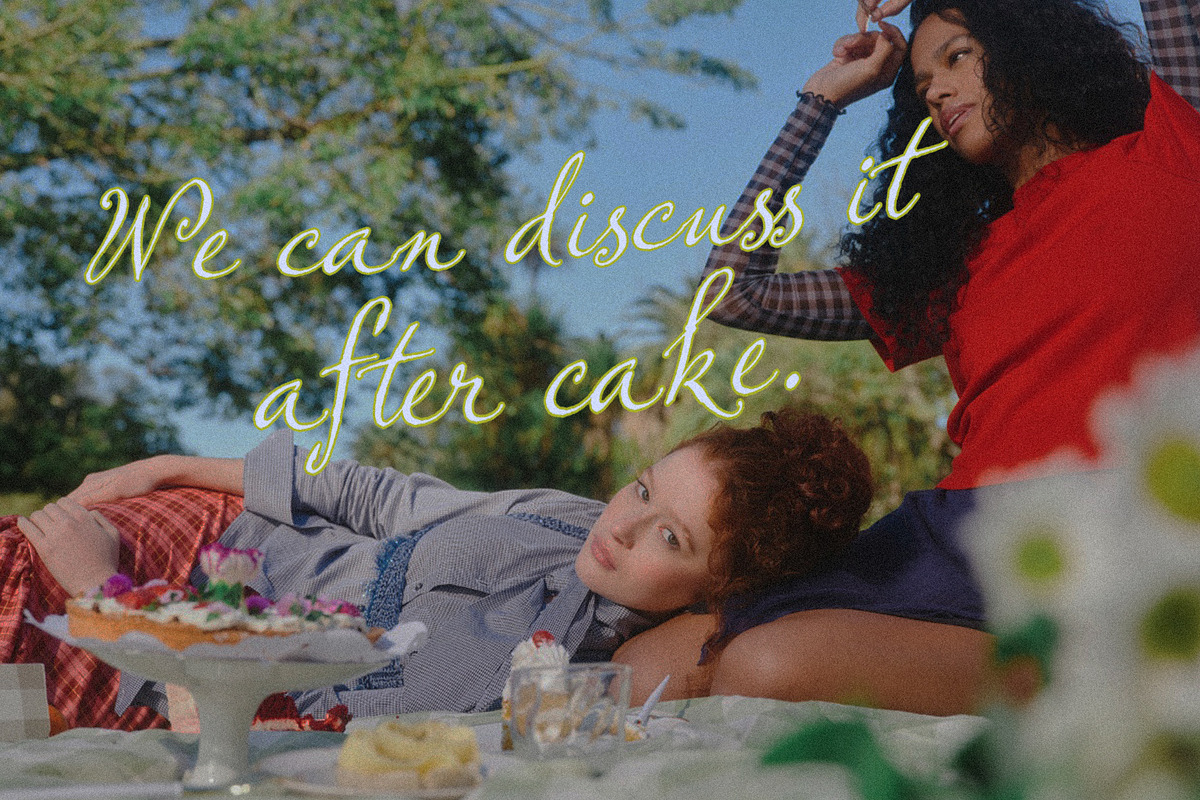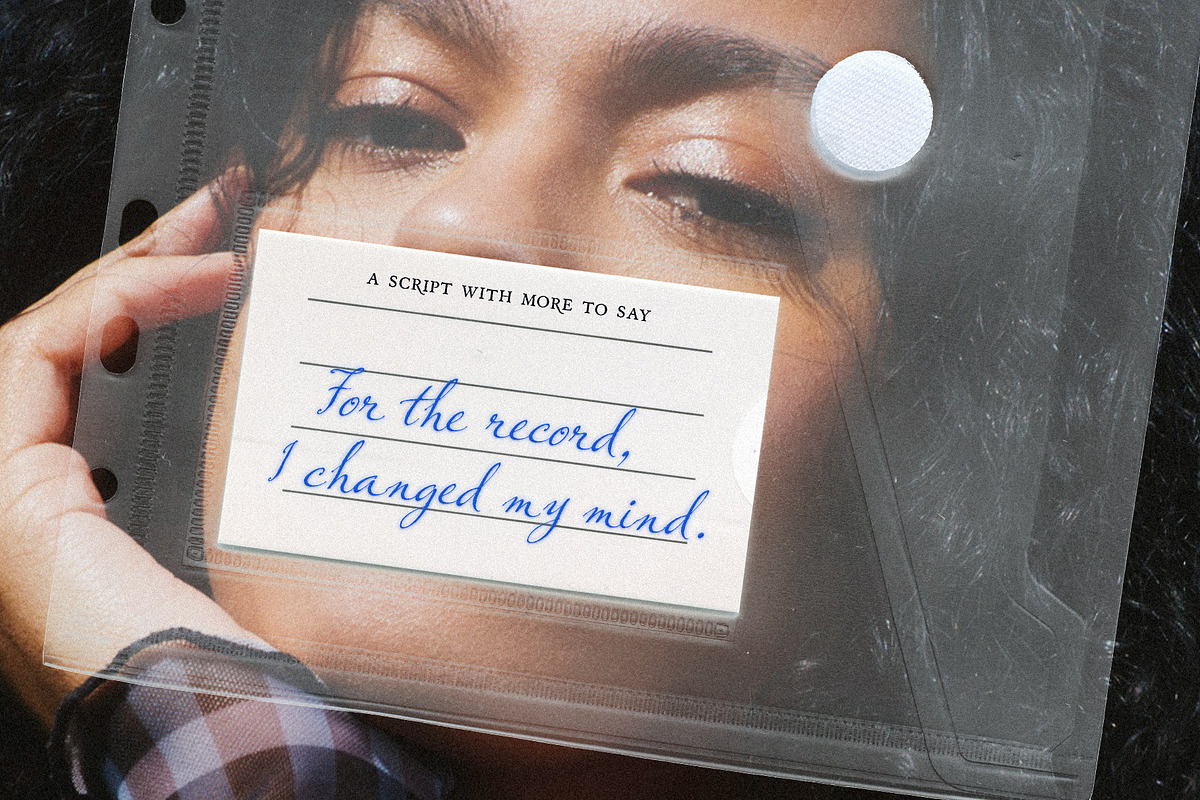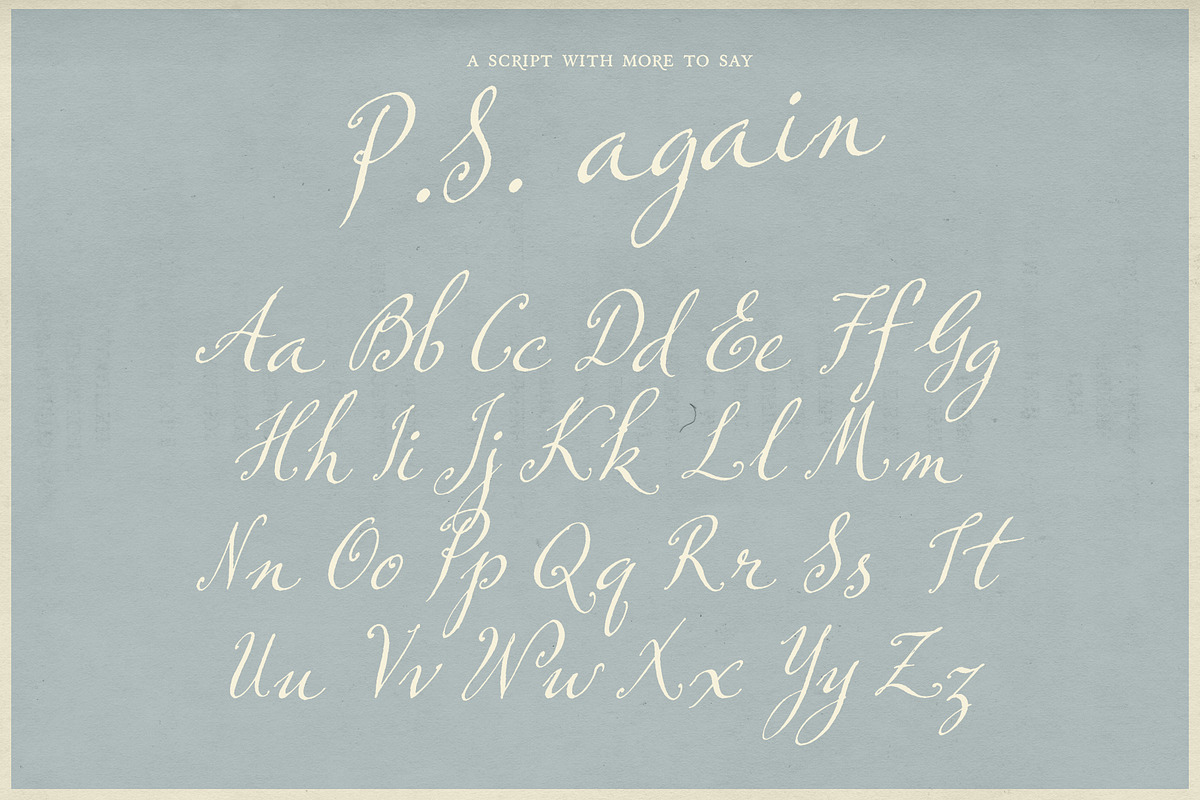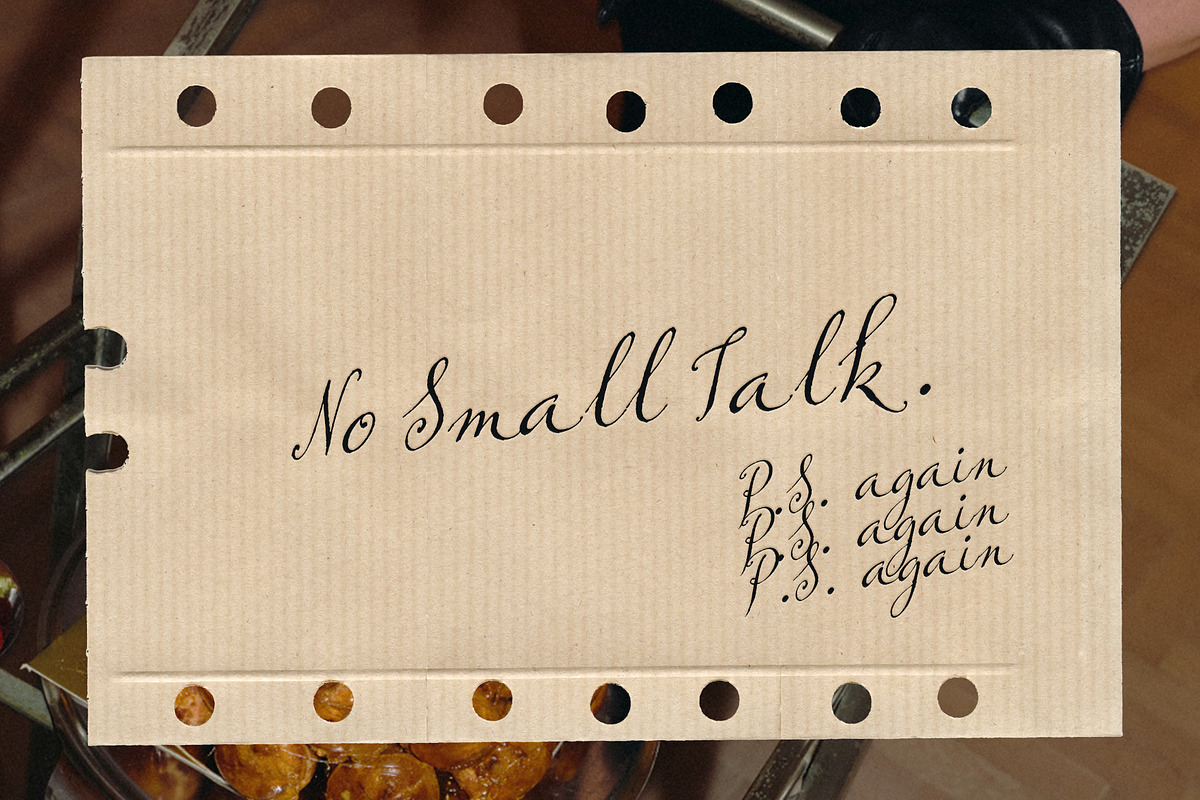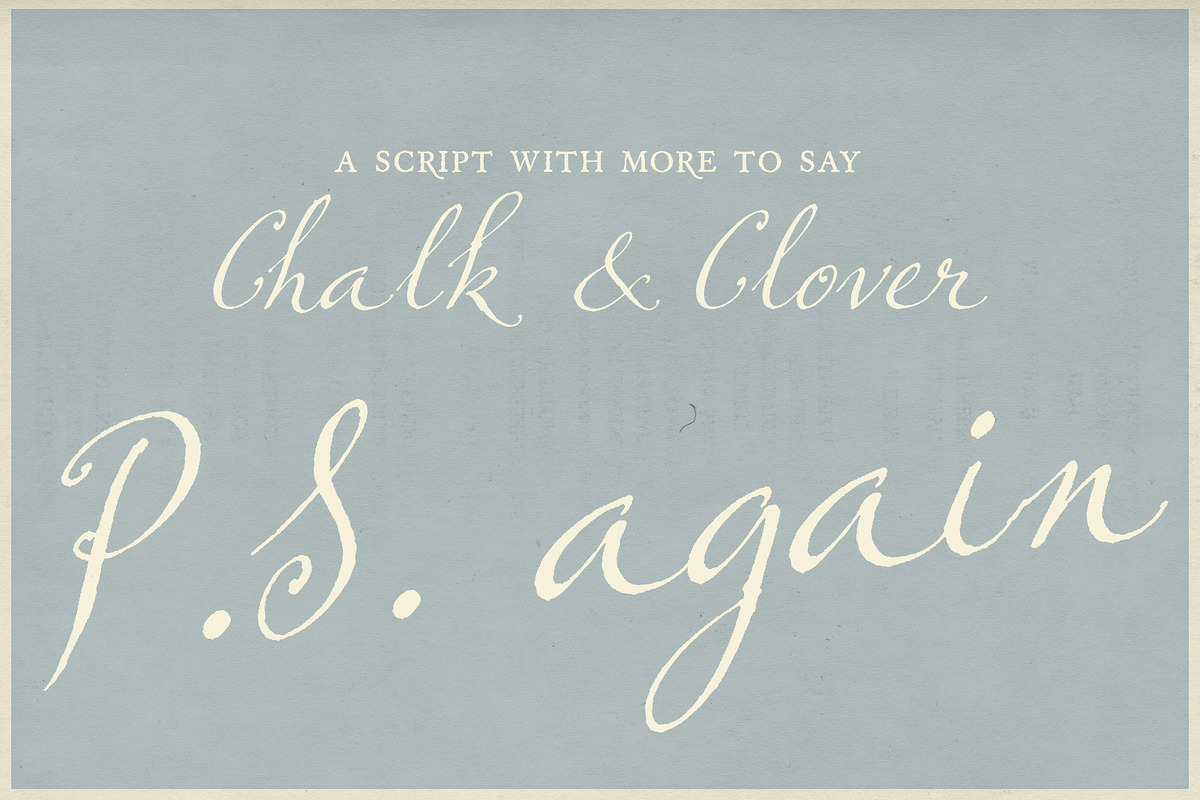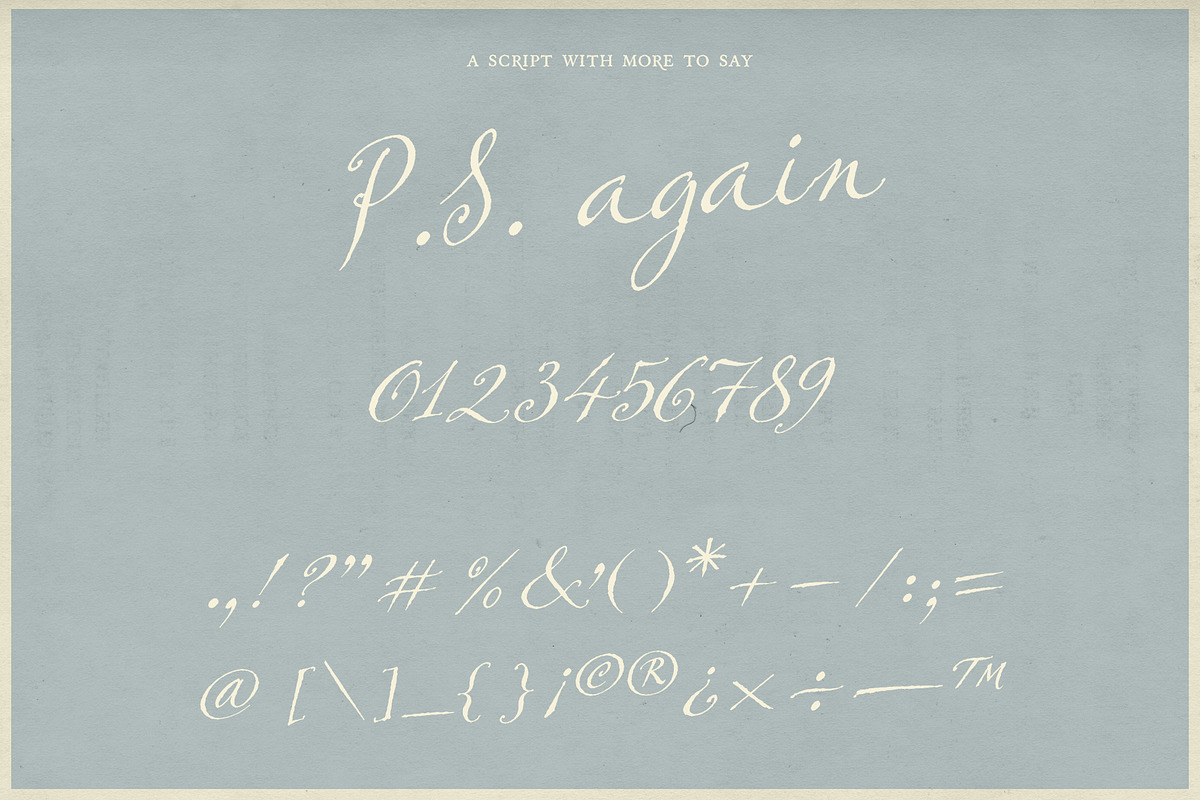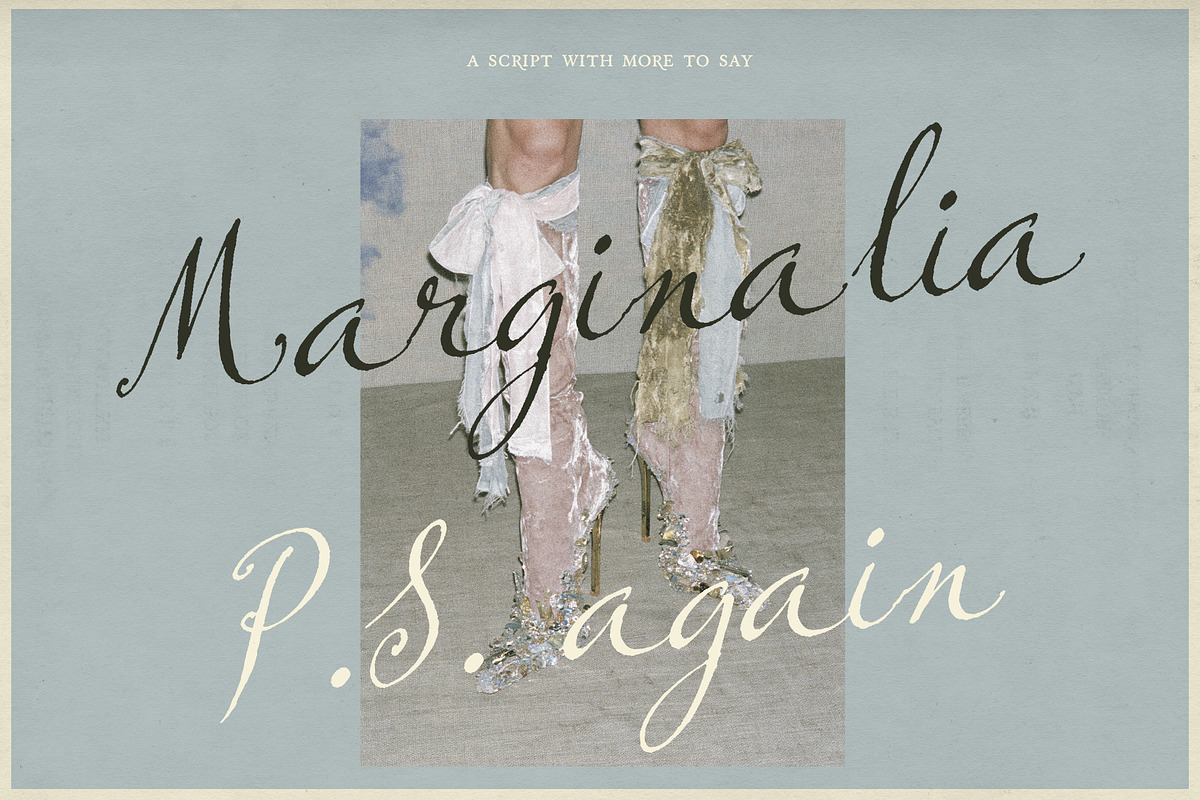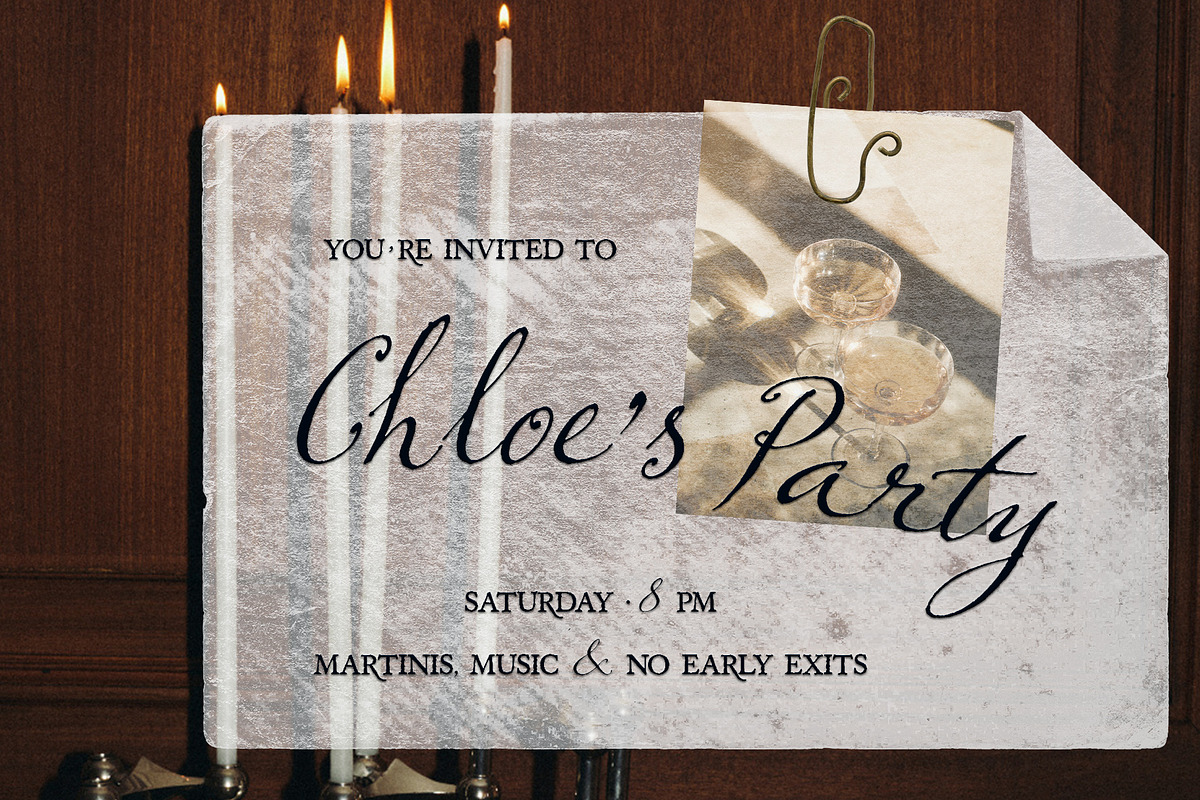
P.S. Again - Handwritten Script
P.S. Again is an expressive handwritten script with sweeping capitals, slender strokes, and fluid lowercase letters. It brings a personal, slightly dramatic rhythm to short phrases and names.
Use it for editorial headlines, invitations, stationery, packaging, and brand signatures.